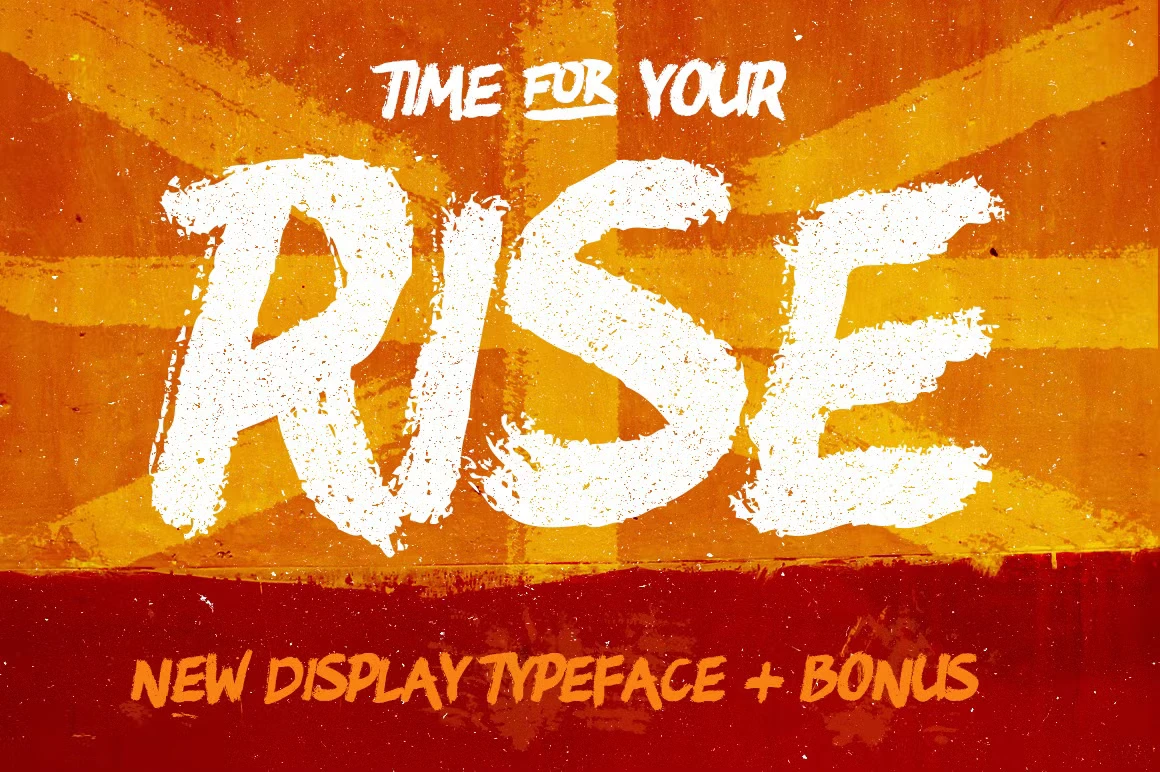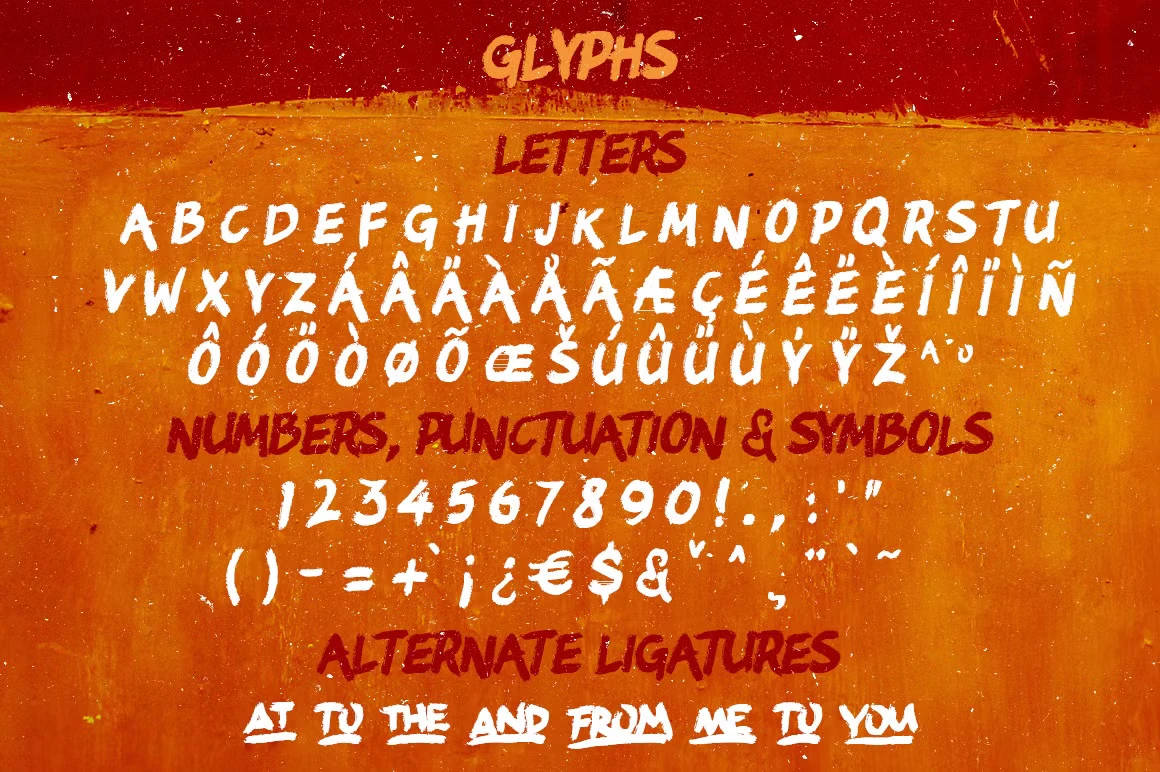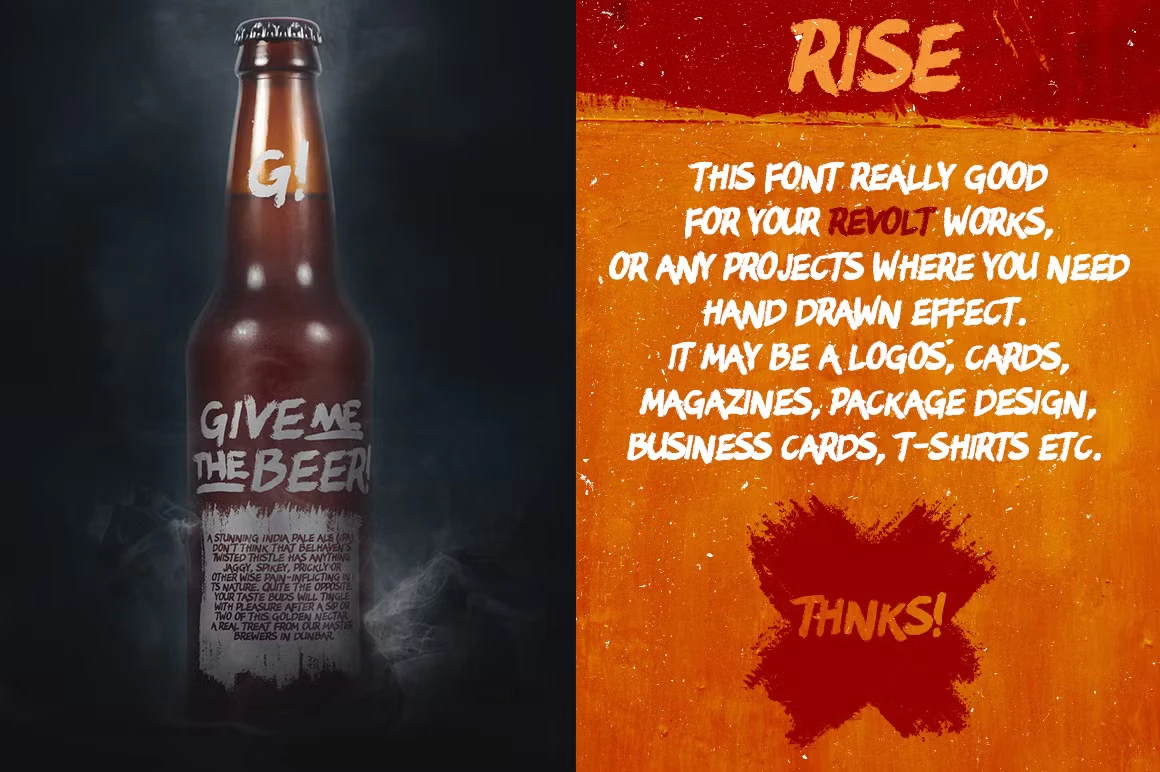
Rise Font
Glad to show you my new typeface Rise with perfect hand drawn effect. Very detailed brush font will be really good for any type of your works: logos, business cards, magazines, package design, t-shirts etc.
• Discretionary Ligatures
• Ordinal Numerals